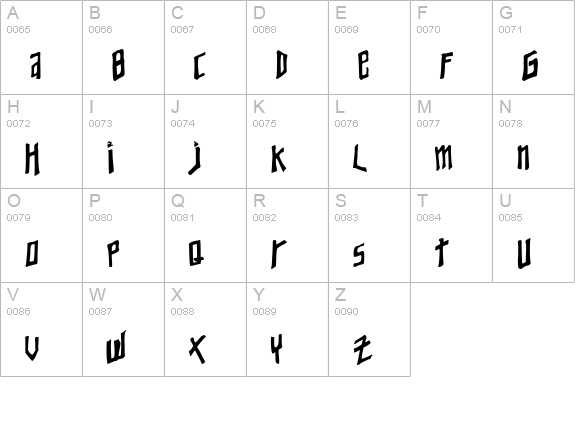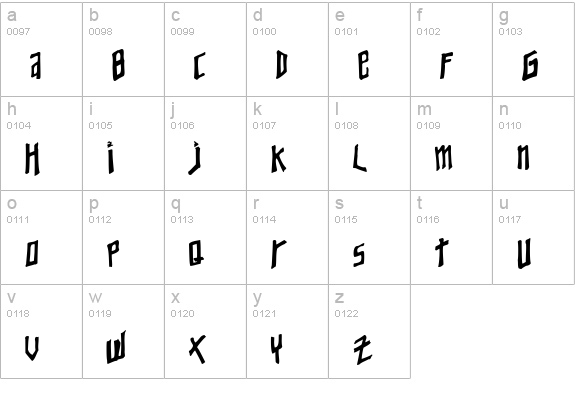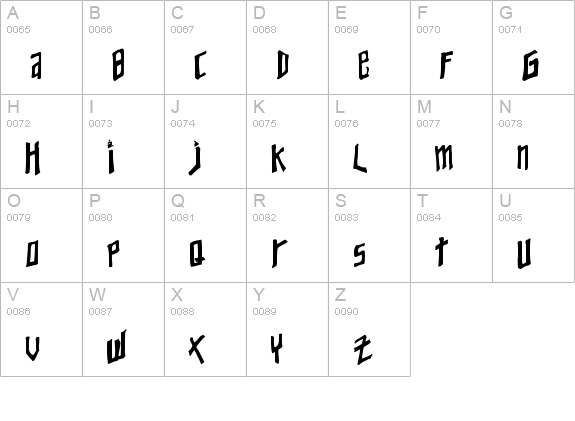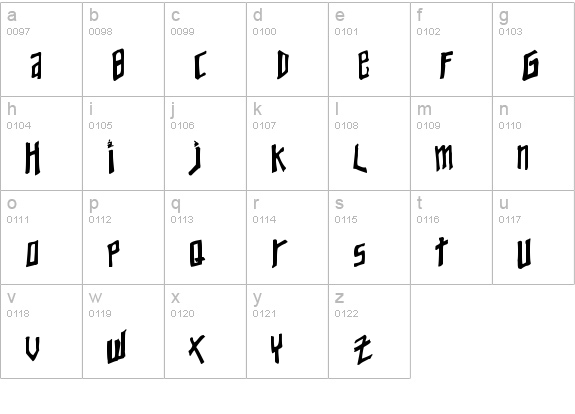
Young Zaphod Font Details
Young Zaphod font is a modern and playful typeface that exudes a sense of youthful energy and creativity. Its clean lines and bold shapes make it perfect for a variety of design projects, from posters to logos to social media graphics. The font's unique personality adds a touch of fun and whimsy to any text it graces. And the best part? Young Zaphod font is completely free to download at FontsMarket.com. This means you can bring a fresh and dynamic look to your designs without breaking the bank. So why wait? Download Young Zaphod font today and let your creativity soar!